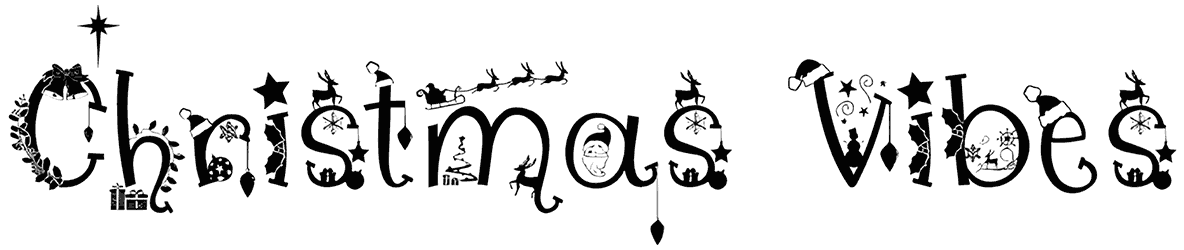
Christmas Vibes Font
Decorate your words with Christmas elements and say hi to Santa. This decorative font, named Christmas Vibes, is capable of bringing a warm and sweet vibe to your happy designs with its adorned serif letters.
This Christmas font doesn’t offer most punctuation marks, but having five versions can cover this lack. Set it for your intended designs, namely postcards, invitations, packaging, or the like, and make them delightful.